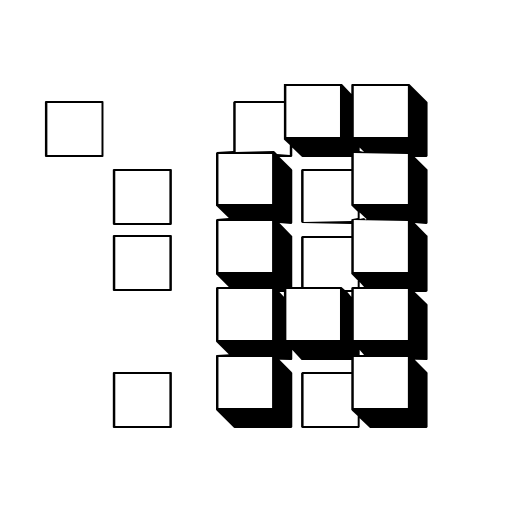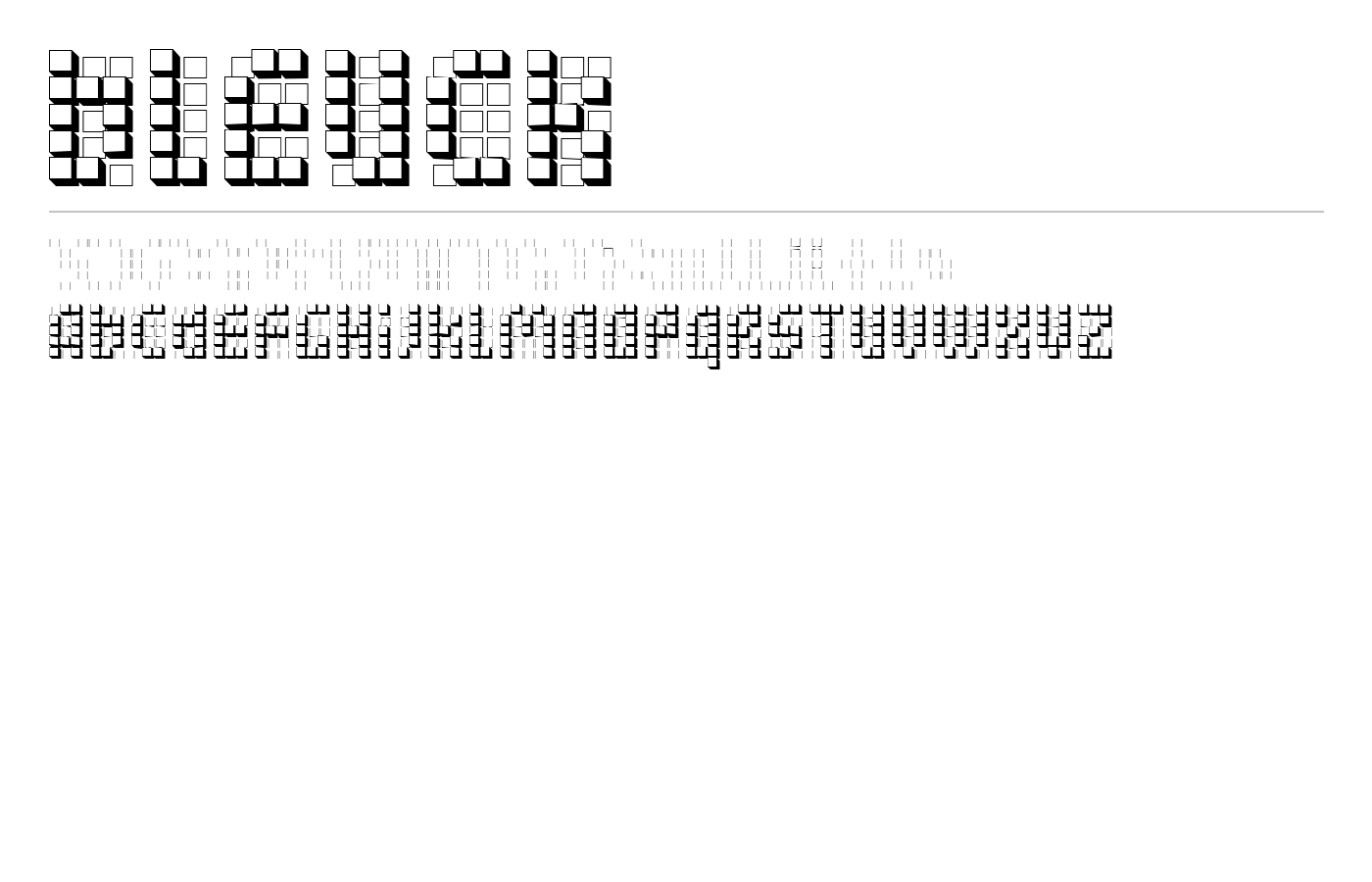
Bleuck Font is a bold, geometric sans serif typeface characterized by a unique blocky, three-dimensional cube design that creates a strong, digital and futuristic vibe. Its evenly spaced, all-caps letters offer a striking, modern look ideal for eye-catching headlines, logos, and creative tech or gaming branding where a distinctive, playful yet structured style is desired.